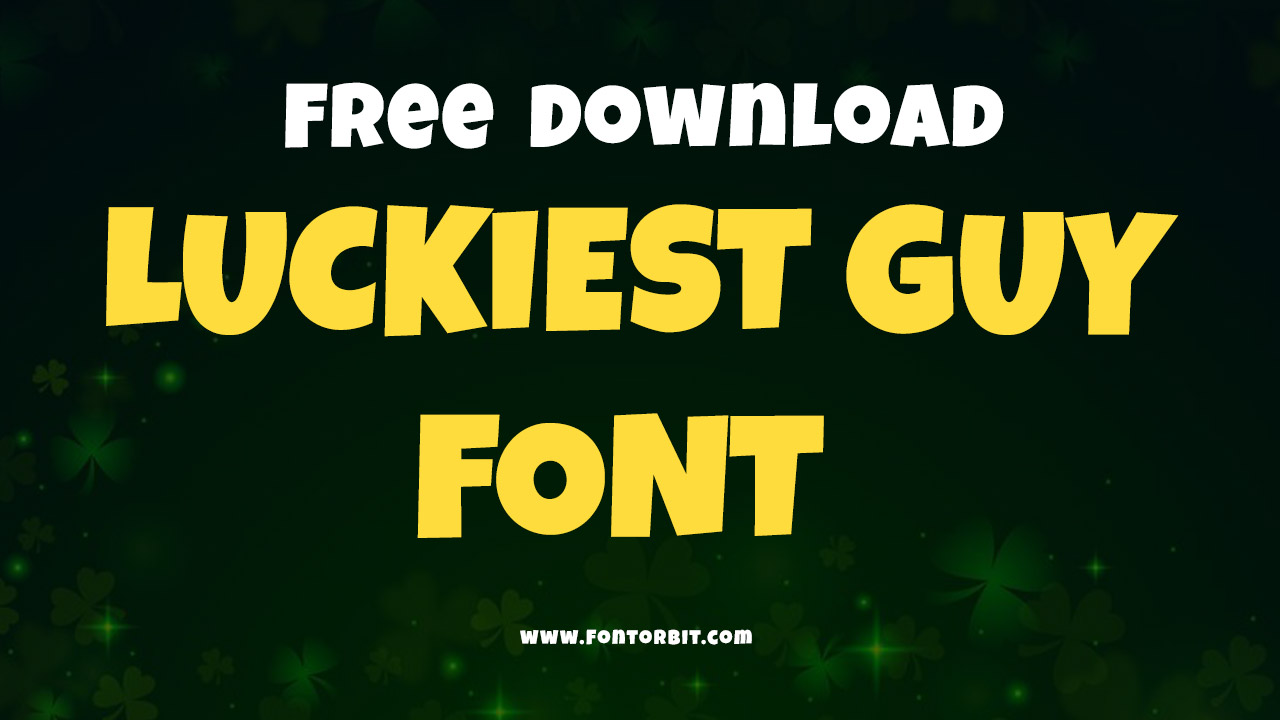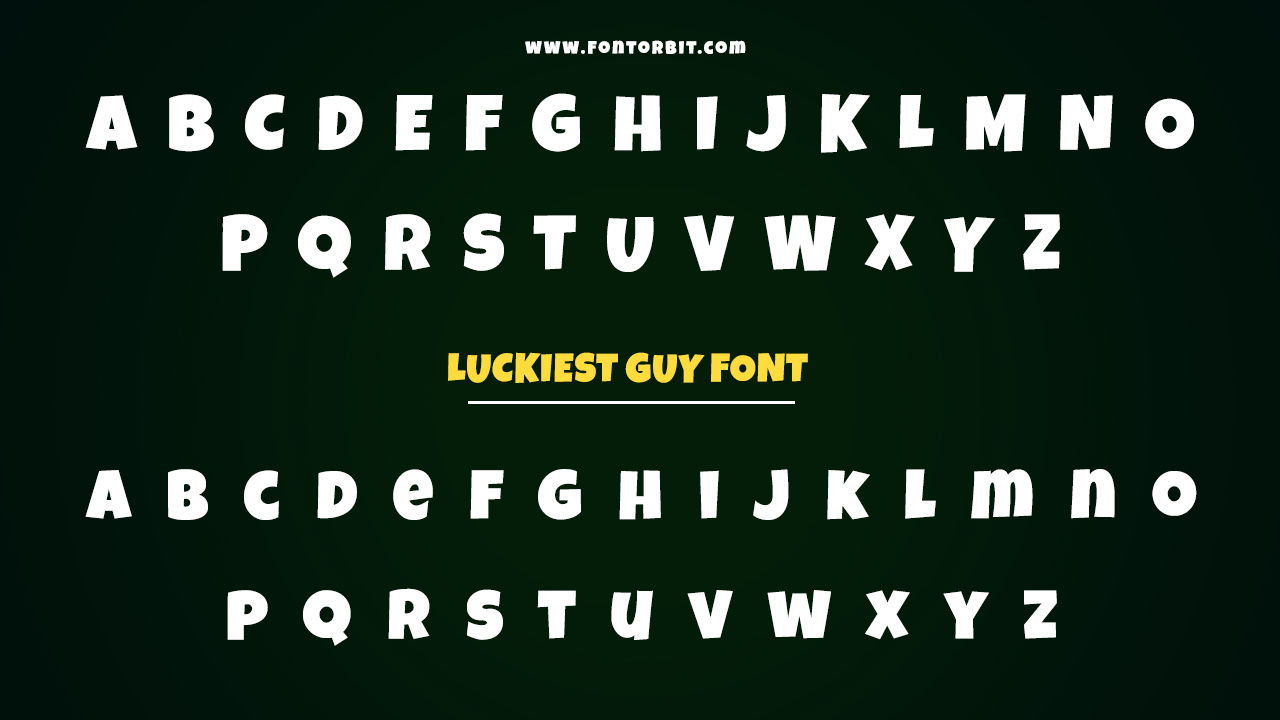
Luckiest Guy is a bold, playful display font designed by Astigmatic. Released in 2011, this font belongs to the Sans Serif family. Its quirky and rounded characteristics make it perfect for casual and lively designs, enhancing the fun factor in any project.
Luckiest Guy Font Family Includes
This family includes a single style, making it simple yet versatile for various applications.
Luckiest Guy Regular
Notable Uses Of Luckiest Guy
Designers frequently use Luckiest Guy in various creative fields, such as:
- Children’s books and illustrations
- Posters and flyers for events
- Branding for fun and engaging products
- Social media graphics to capture attention
This font is ideal for:
- Websites focused on entertainment or youth culture
- Invitations for casual events or parties
- Marketing materials that aim to attract a younger audience
- Use this font to create bold, eye-catching headlines or logos.
Luckiest Guy is a fantastic choice for designers looking to infuse their projects with a sense of fun and whimsy. It’s bold personality and unique style make it a go-to option for various creative endeavours. Whether you’re designing for print or digital, this font can add a delightful touch to your work.
7.Is Luckiest Guy Suitable For Body Text?
It’s designed primarily for display purposes and may not be ideal for body text.